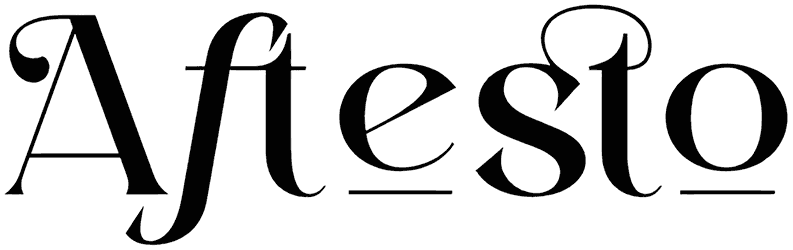
Aftesto Font
If you are seeking a classic yet luxurious pattern to decorate the words of your forthcoming design that conveys both a modern and ancient vibe, you’ve got there. As a luxury font with curly and modest letters in two styles, the Aftesto is designed to show your projects in an advanced and loyal face.